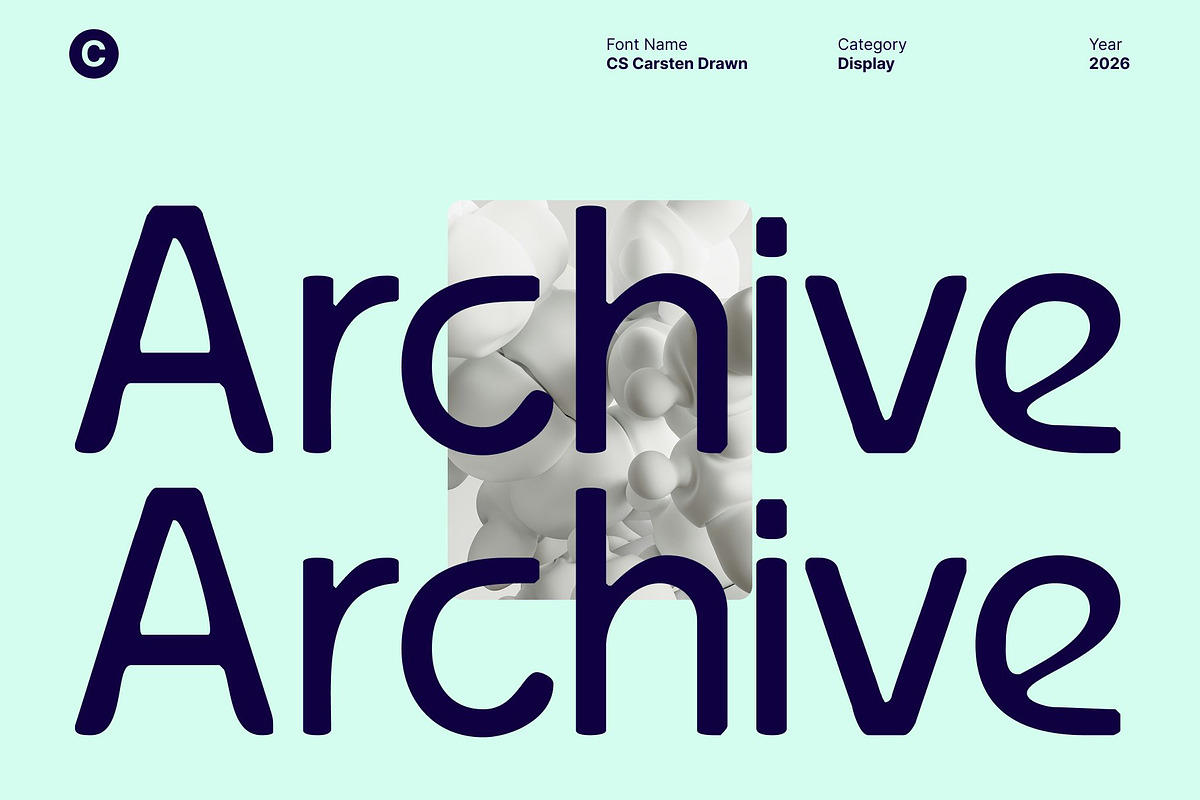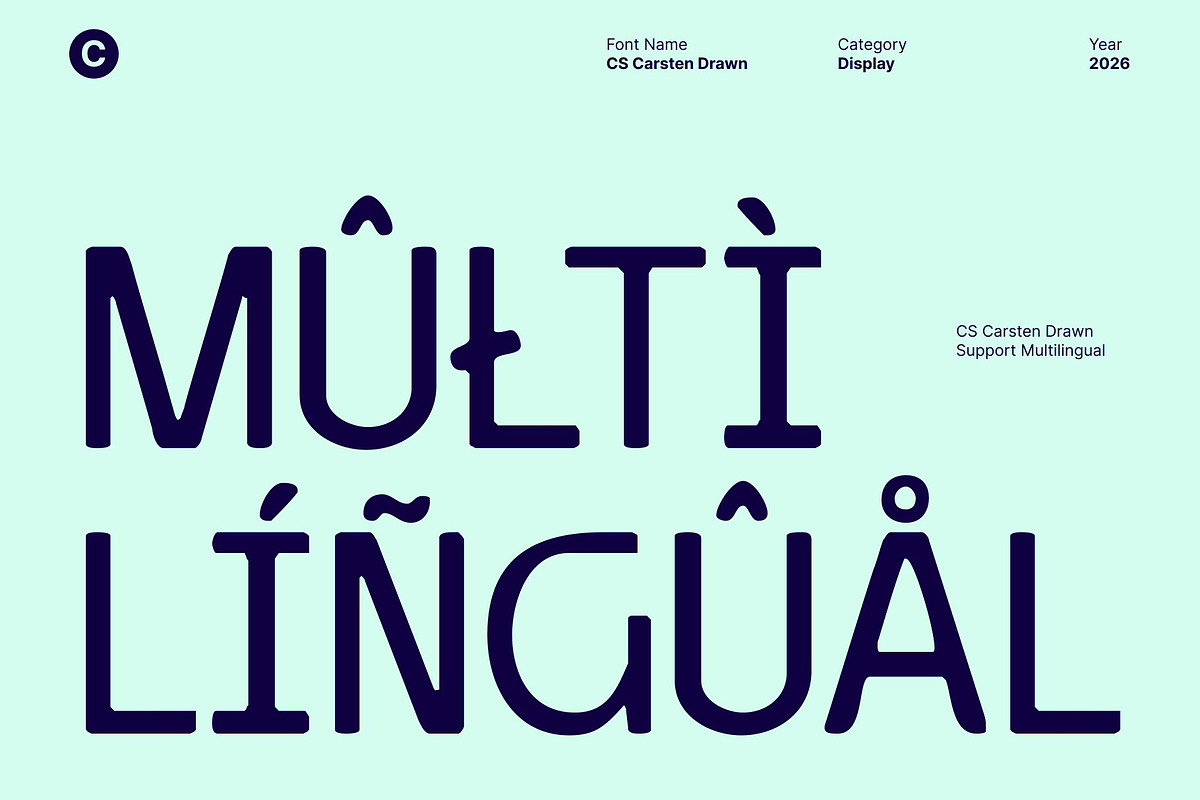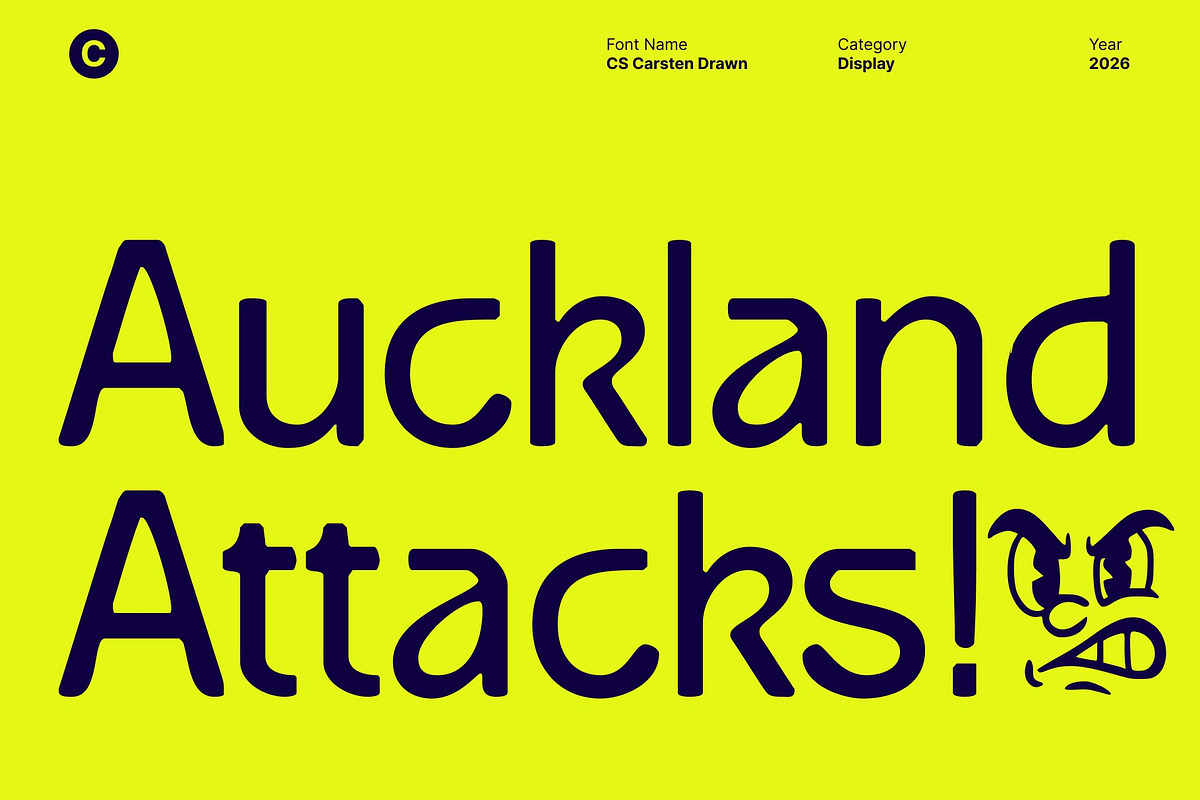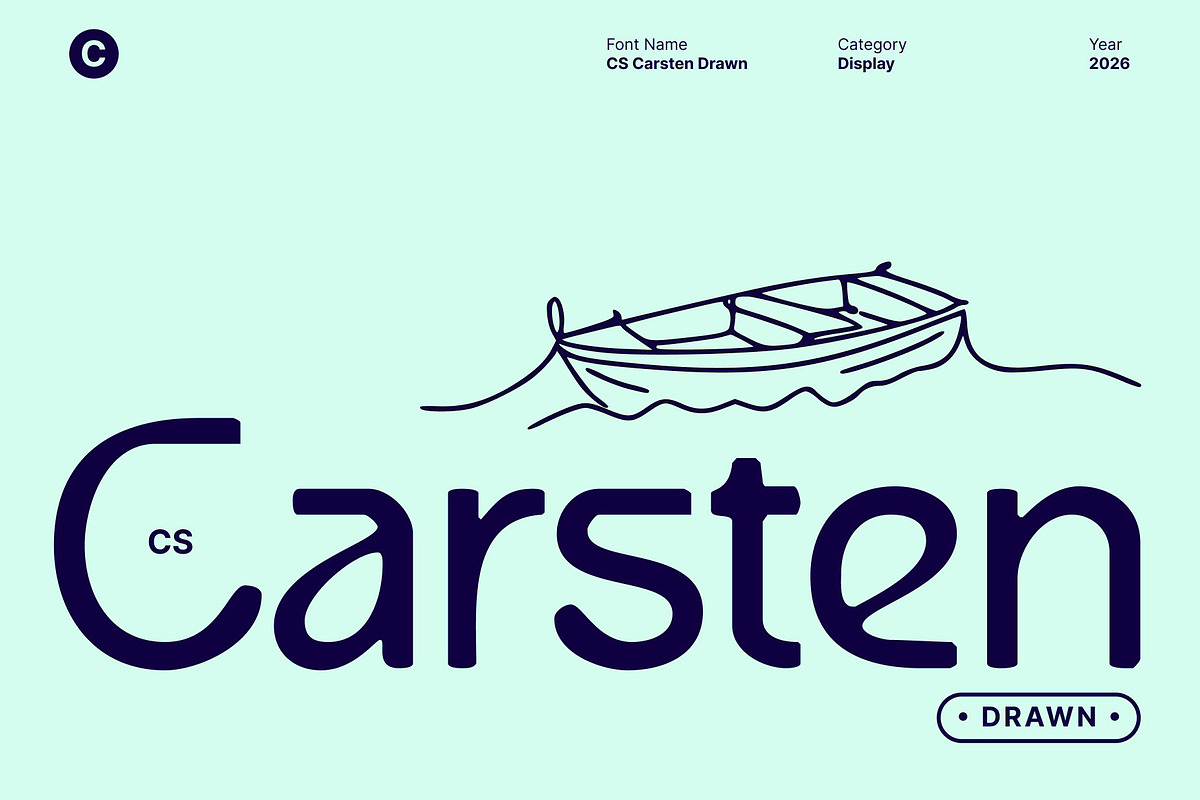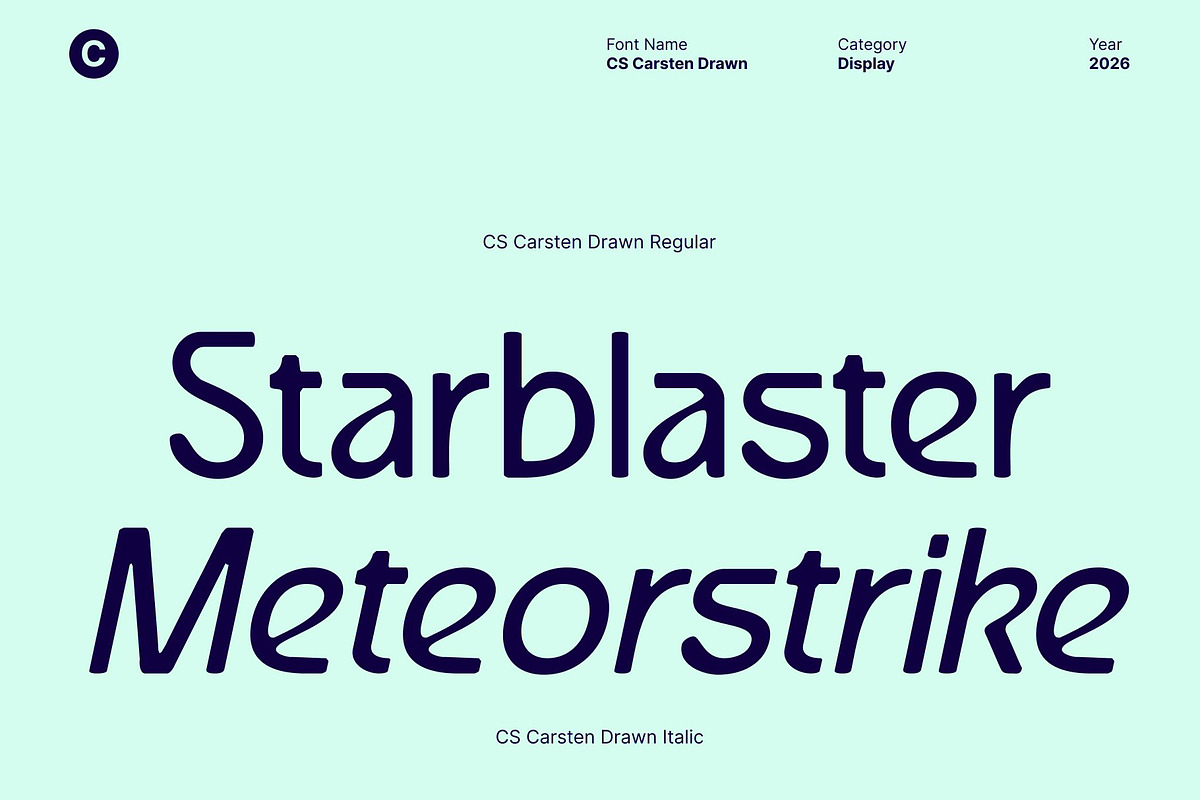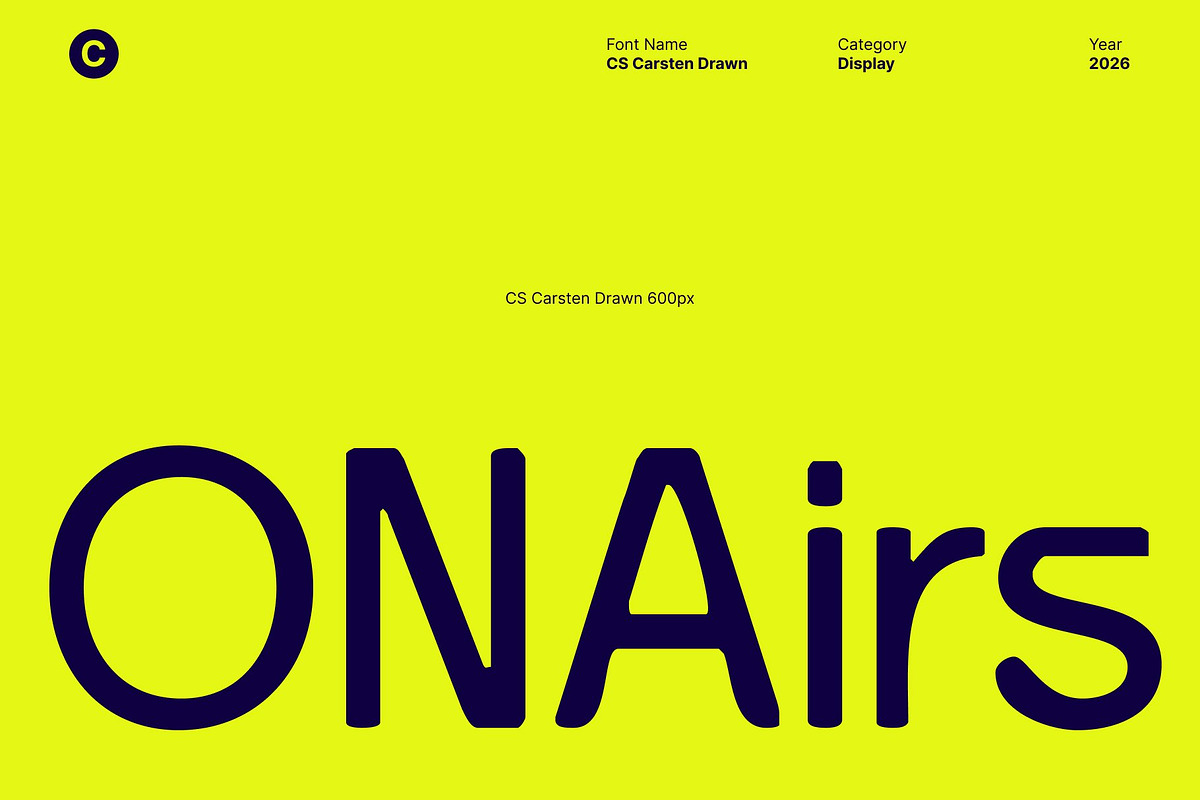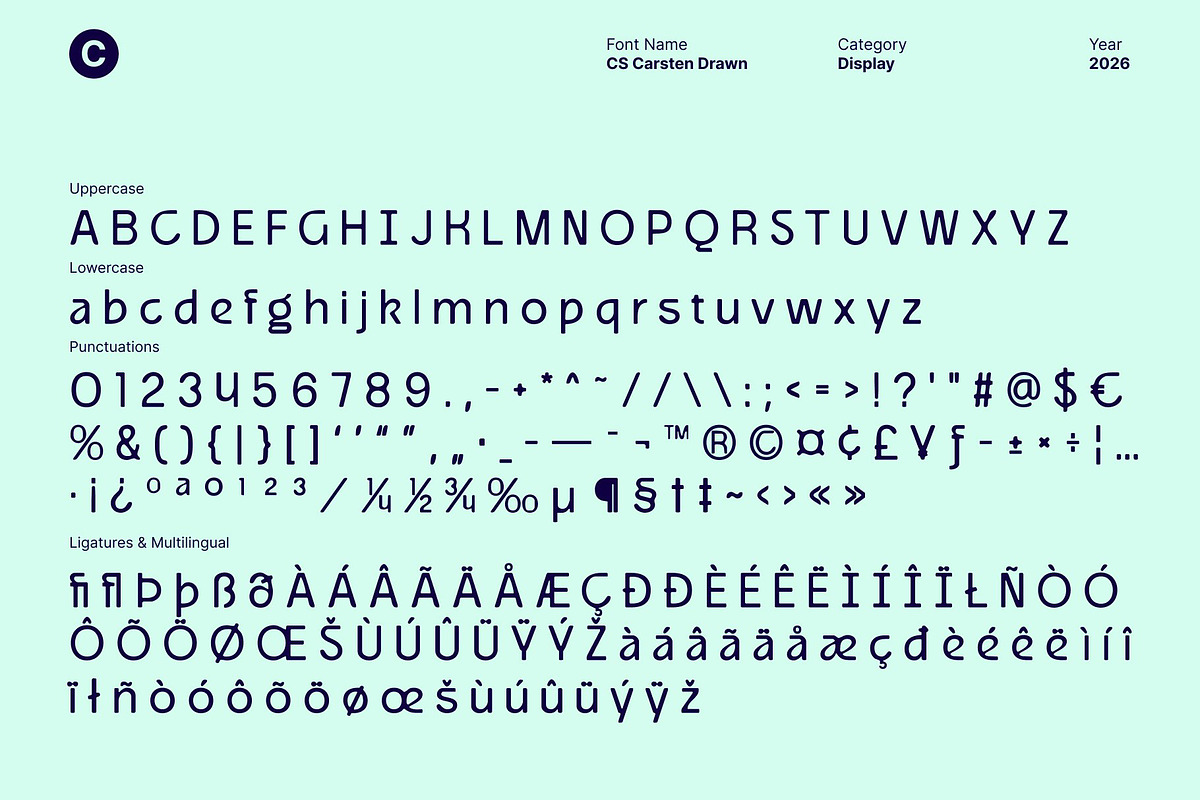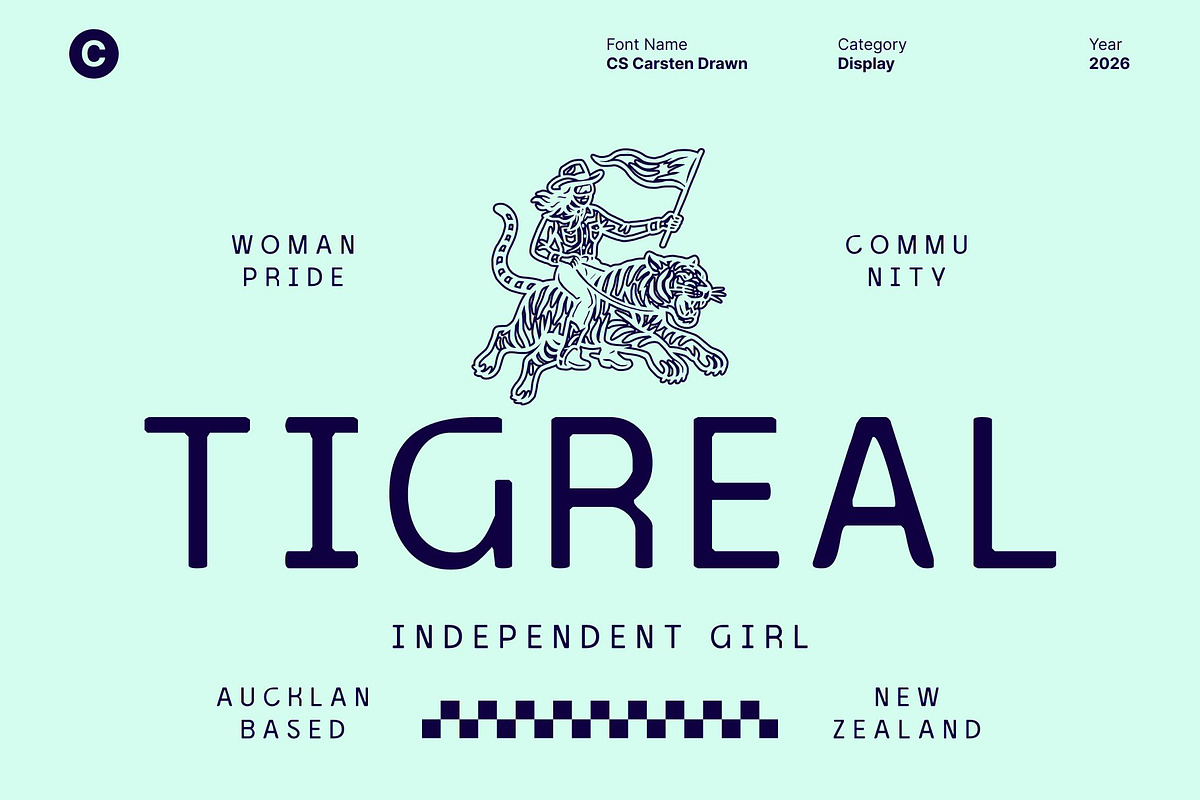
CS Carsten Drawn
CS Carsten Drawn – Hybrid Modernity with Relaxed Professional Elegance
Hybrid Sans Serif Font with Contemporary Character This is a sans serif font featuring a hybrid design that blends modern, experimental, and minimalist elements into a cohesive and versatile typeface. Enhanced with a subtle drawn texture, it introduces a handcrafted softness that balances its clean structure. The result is a visual language that feels professional yet relaxed, modern yet approachable.
Modern Details with Minimalist Control Built on a minimalist foundation, this font features clean strokes and balanced proportions that ensure clarity and control. The drawn effect adds gentle irregularities and organic nuance, giving the letterforms a more human and expressive quality. These modern details keep the font visually engaging without disrupting its refined and structured appearance.
Elegant Tradition with a Handcrafted Contemporary Feel This font bridges traditional elegance and contemporary design through calm rhythm and smooth construction, now enriched by a relaxed, hand-drawn finish. This combination creates a sense of trust and professionalism while avoiding stiffness, making the font feel warm, flexible, and confidently modern.
Perfect for Branding, Editorial, and Digital Design Designed for versatile use, this font is ideal for branding, editorial layouts, websites, and digital interfaces. Its hybrid character and drawn texture make it especially suitable for modern brands, creative studios, and professional projects that want a clean look with subtle personality and artistic depth.
- CS Carsten Drawn Regular
- CS Carsten Drawn Italic